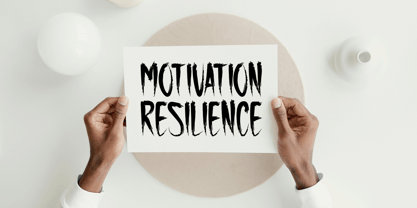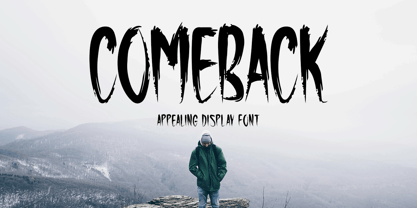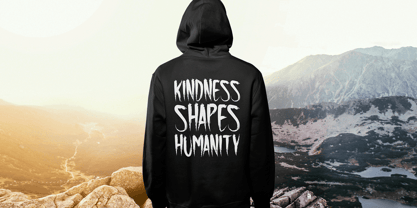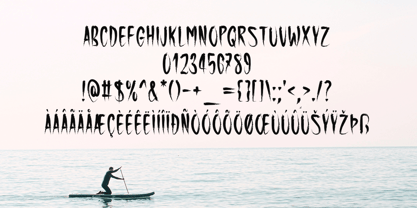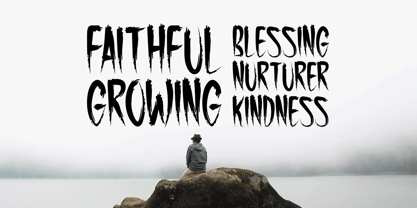
Comeback
by Seemly Fonts
The Comeback Font Family was designed by Md. Sohail Bhuiyan and published by Seemly Fonts. Comeback contains 1 styles. More about this family
Comeback is a dynamic brush-style font that features smooth, expressive strokes and a natural handcrafted look. Its artistic texture makes it suitable for many types of creative work, including stationery, branding, t-shirts, posters, music covers, flyers, website headers, and various print designs. With its energetic flow and unique character, Comeback adds a strong visual presence to any project.